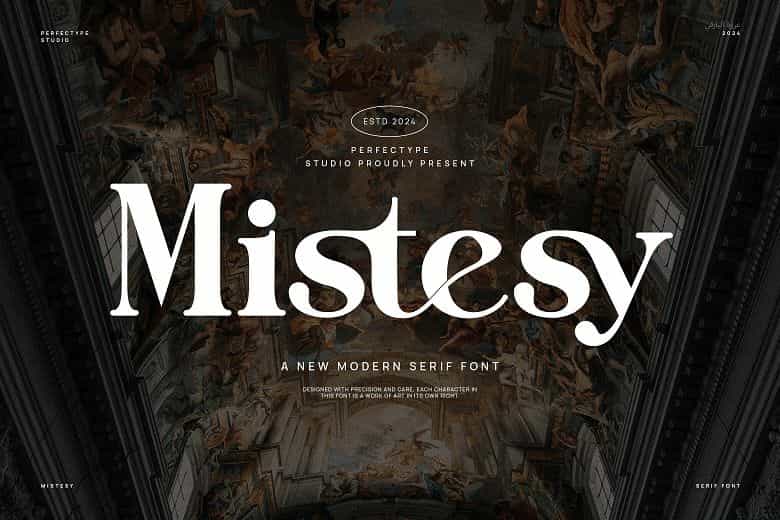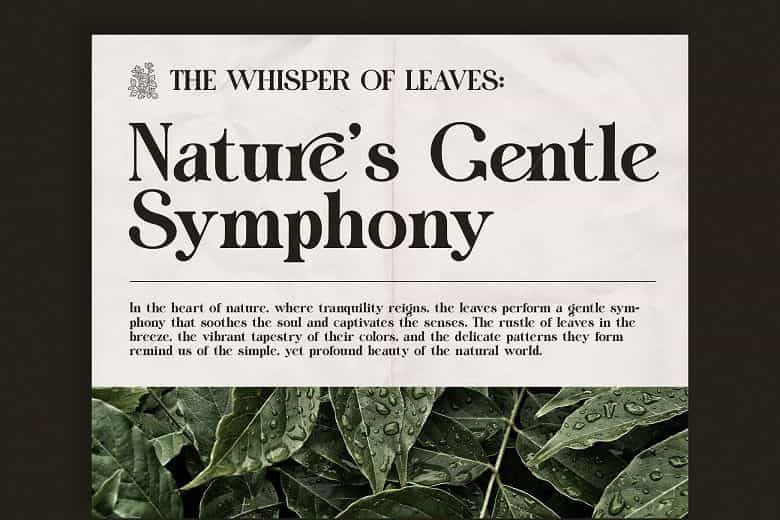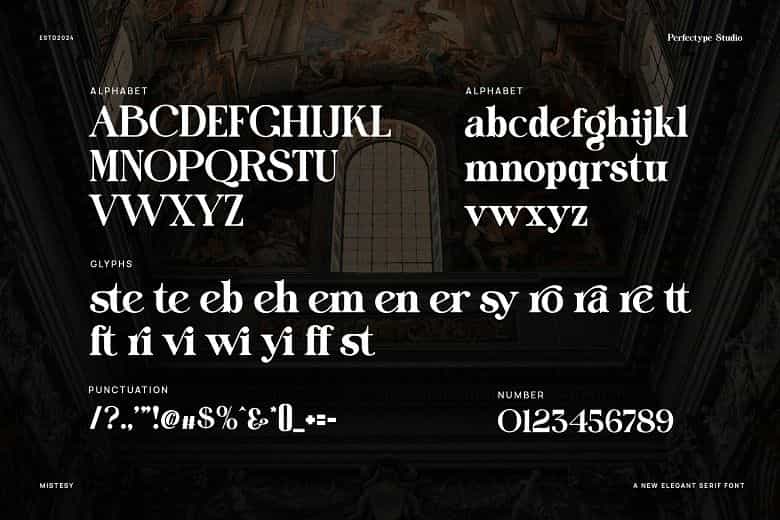
Mistesty – is a sleek and modern serif font based on the classical aesthetics with touches of modernity. This font is highly suitable for use in numerous projects, be it creative branding, or stylish publication design.